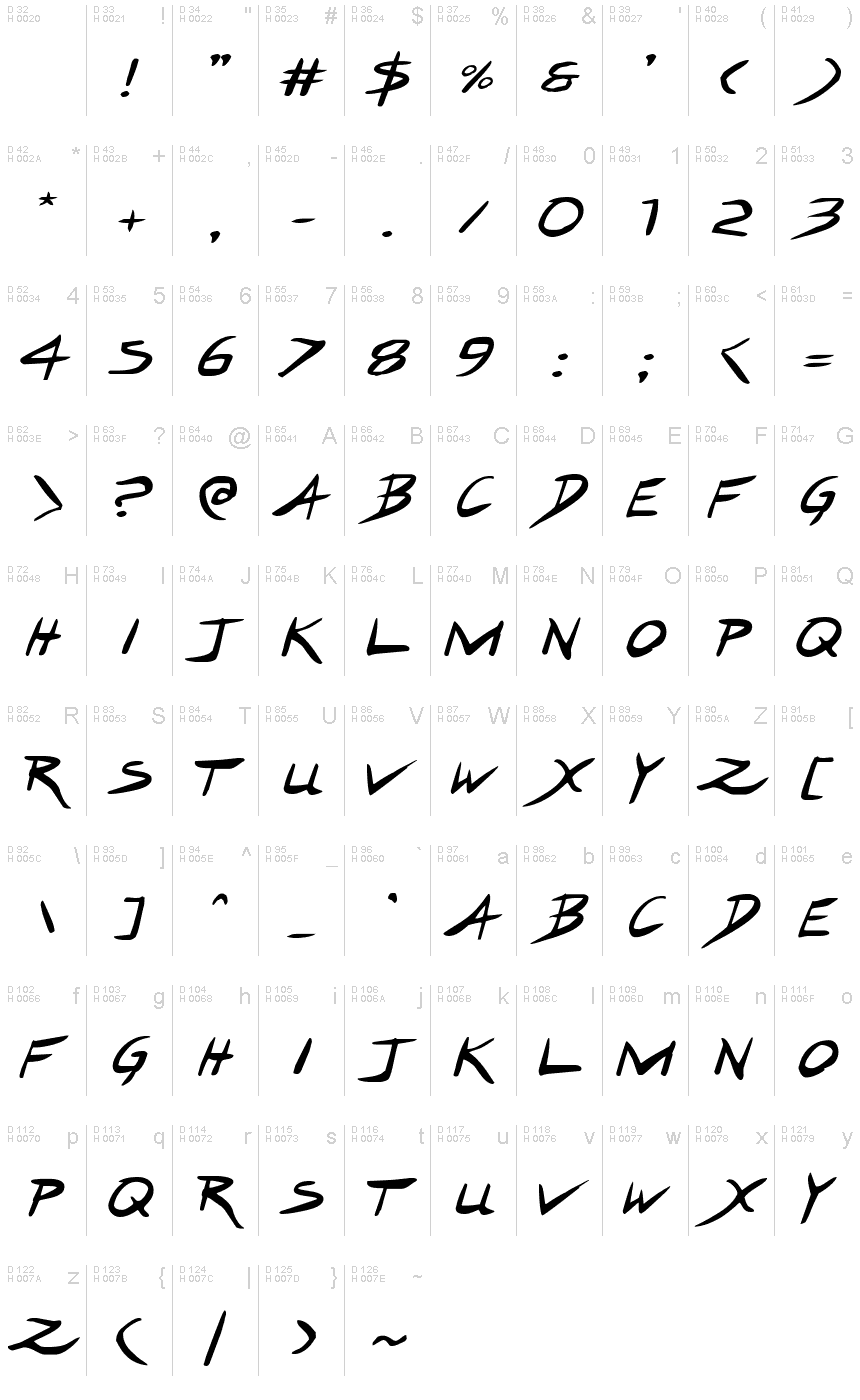
Hakturus Expanded Italic
Hakturus Expanded Italic is a captivating brush font designed by Iconian Fonts. With its expanded width and expressive strokes, this font exudes energy and creativity. Perfect for eye-catching headlines, logos, and packaging designs, Hakturus Expanded Italic adds a touch of artistic flair to any project. Whether you're working on a trendy fashion brand, a vibrant food blog, or an edgy music album cover, this font will make your designs stand out from the crowd. Embrace the boldness of Hakturus Expanded Italic and let your imagination run wild!